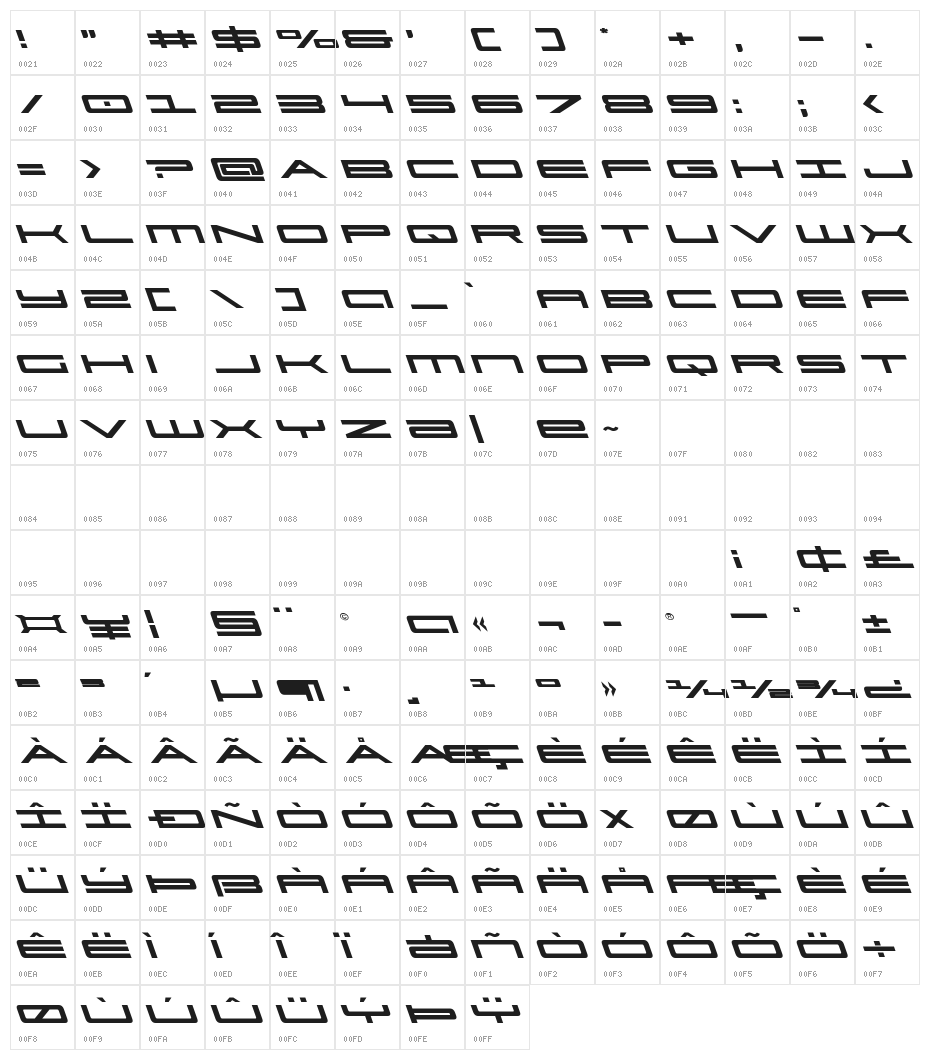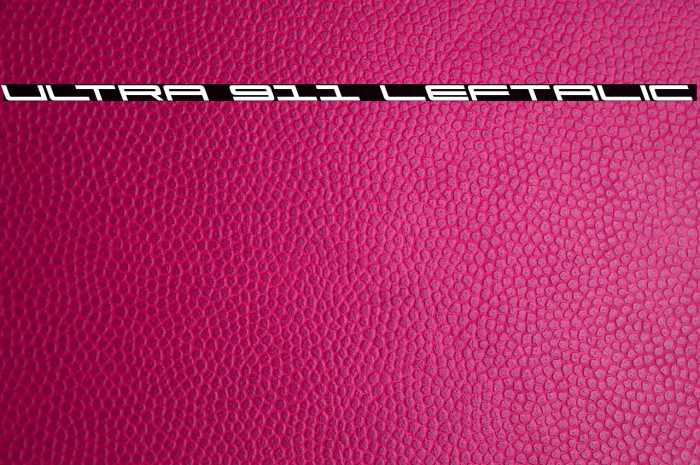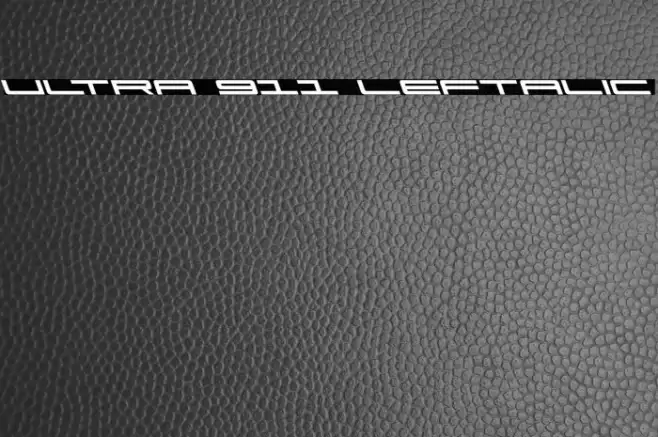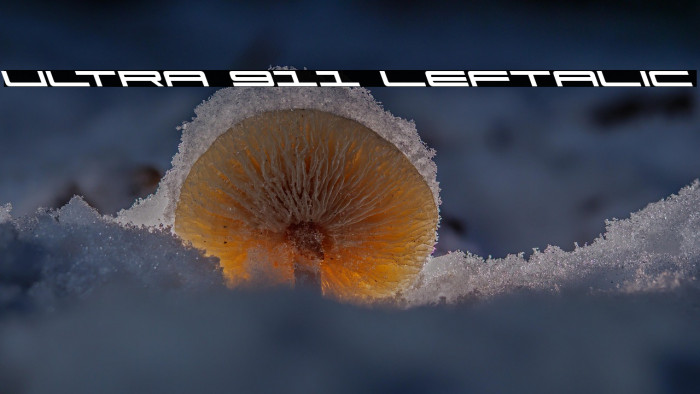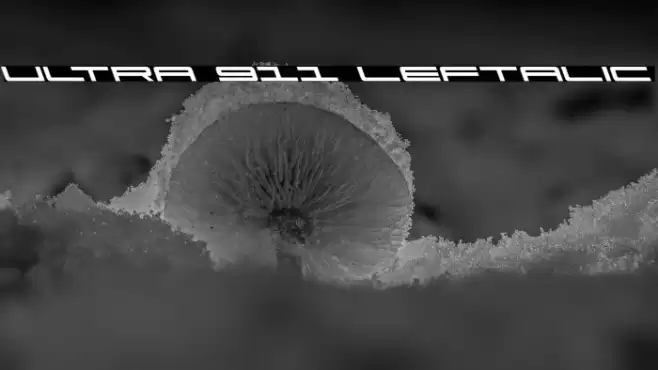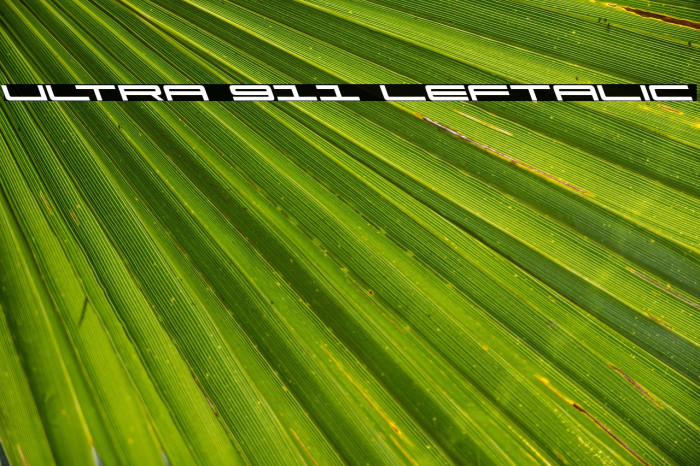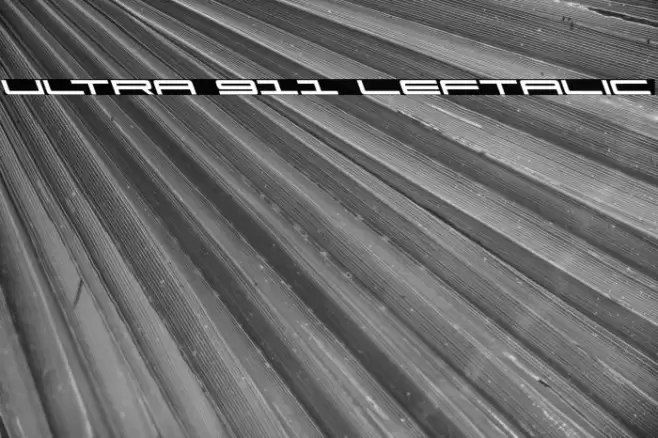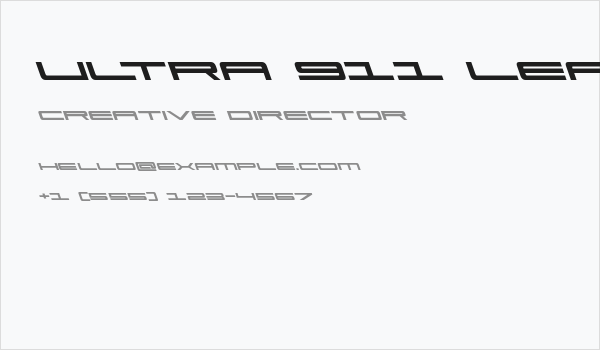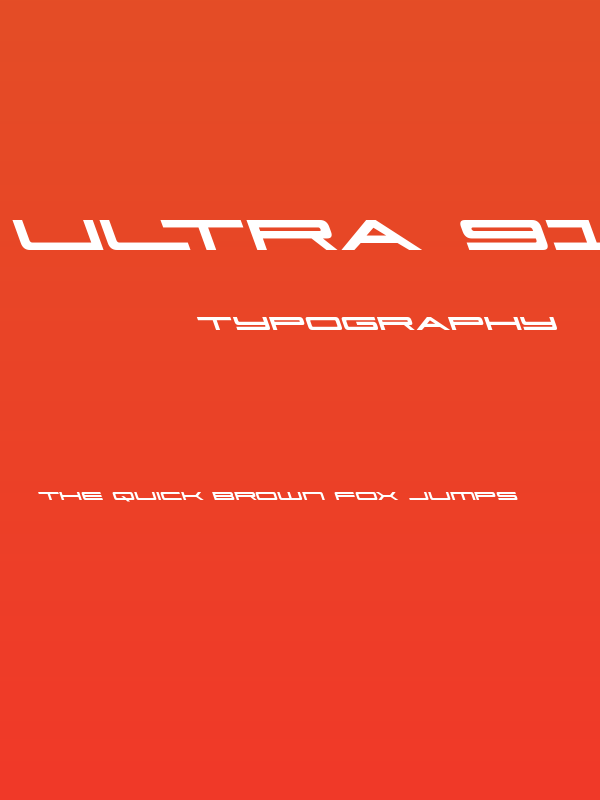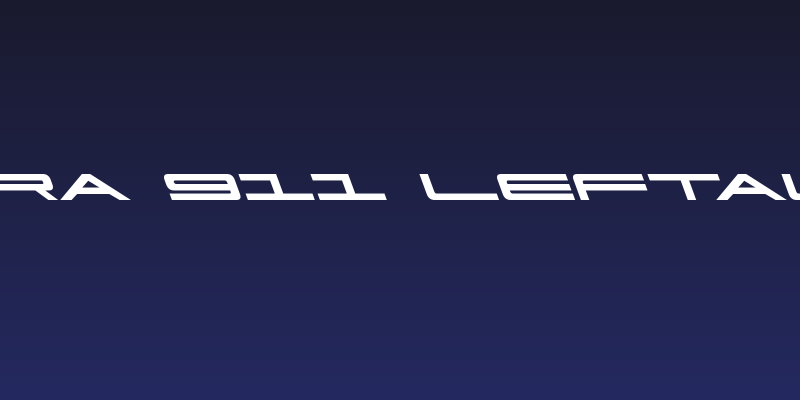
Ultra 911 Leftalic Font
Ultra 911 Leftalic Description
This font features a futuristic and angular design, characterized by its sharp edges and geometric shapes. The letters are slightly italicized, giving a sense of motion and speed. The uppercase and lowercase letters maintain a consistent style, with a uniform height and width that enhances readability. The numerals are distinct and match the overall aesthetic, while the special characters are creatively integrated, maintaining the font's unique style. This font is ideal for projects that require a modern and dynamic look.
| Proposed Projects | Ideal for sci-fi themed designs, technology branding, video game titles, and automotive advertisements. |